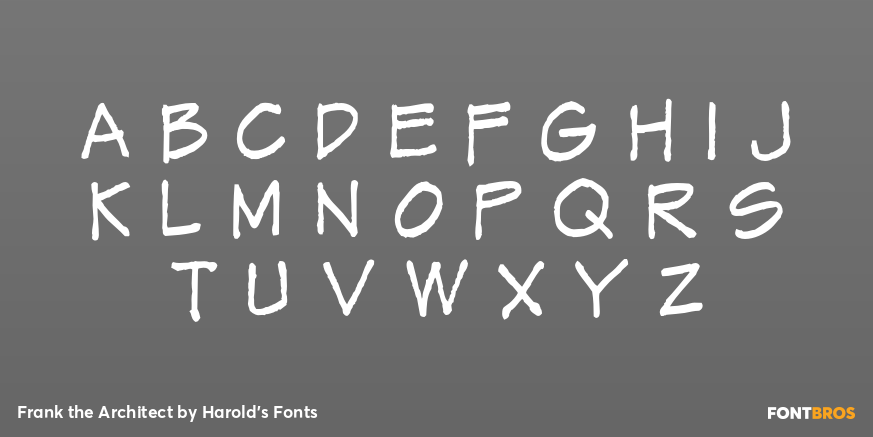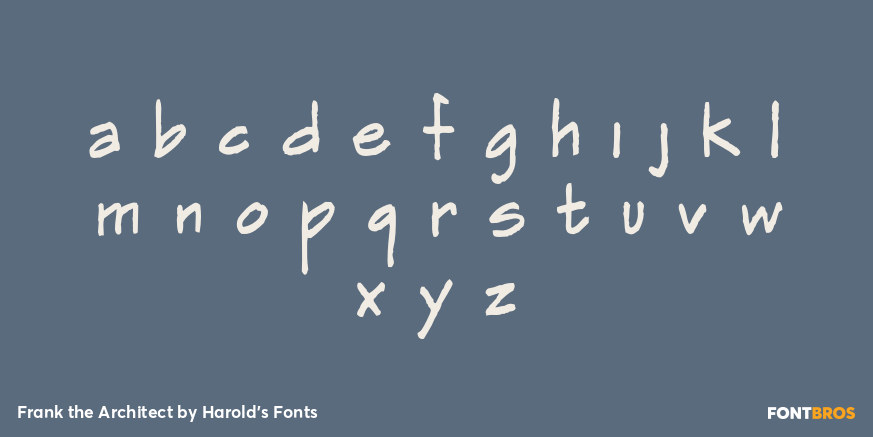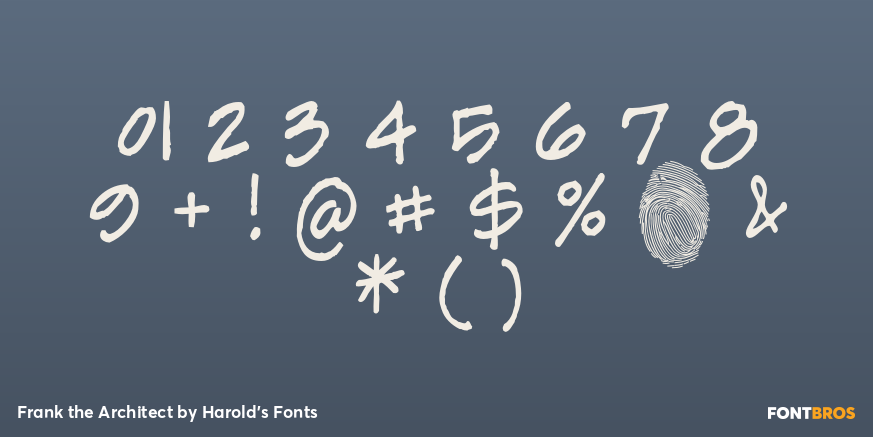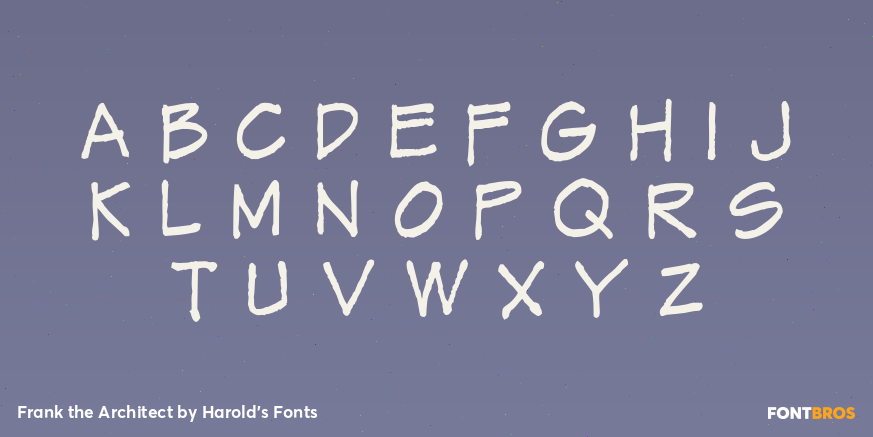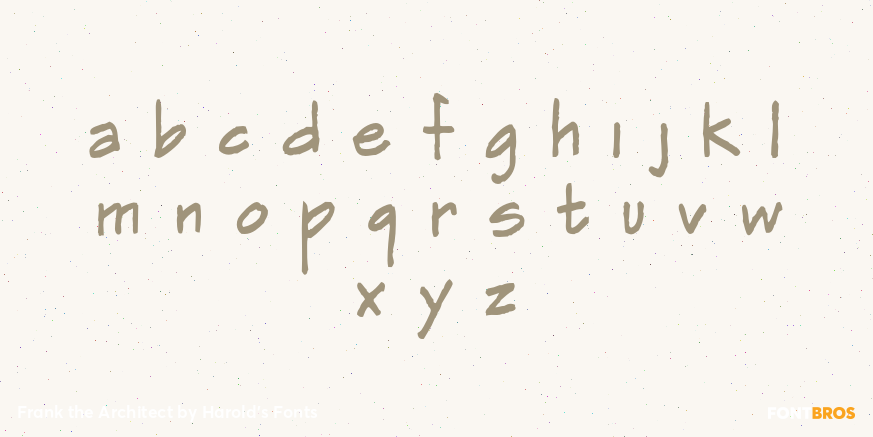
Frank the Architect
Font Family by Harold's Fonts
Frank The Architect was inspired the hand lettering in Frank Ching's classic (now out of print) book Architectural Graphics (1975). I had read that Adobe's lovely, ubiquitous Tekton was also based on Ching's lettering, but the book is more beautiful than I'd expected. In these fonts I've tried to evoke more of the idiosyncrasies of Ching's original, including the texture.
Frank the Architect Regular
Frank the Architect Alt
Frank the Architect Bold
Frank the Architect Alt Bold